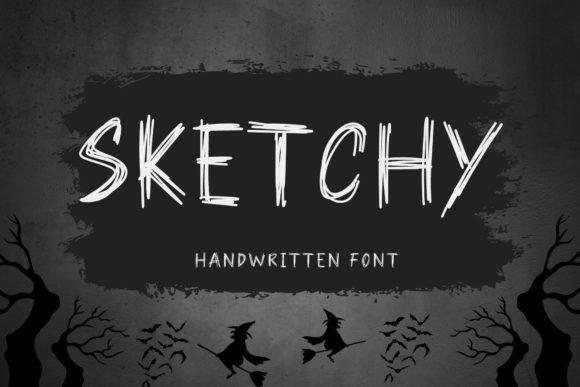
Welcome to the world of Sketchy Font, a decorative font family that will unleash your inner artist. With its playful and hand-drawn style, Sketchy Font transforms your designs into captivating works of art. Picture your words dancing across the page, each letter a unique and whimsical creation. Embrace the charm of imperfection as Sketchy Font breathes life into your projects, evoking a sense of nostalgia and joy.
Imagine crafting invitations that feel like a personal masterpiece, greeting cards that warm the heart, or social media posts that pop with personality. Sketchy Font is your creative companion, adding a touch of delight to every design. Its unique strokes and playful curves invite you to express yourself freely, creating designs that resonate with your audience.
Step into a realm where imagination knows no bounds. Sketchy Font is perfect for adding a personal touch to your projects. Whether you're designing logos, creating eye-catching posters, or simply adding a touch of whimsy to your presentations, Sketchy Font will make your ideas shine.
With Sketchy Font, you're not just downloading a font; you're inviting a world of creativity into your design toolbox. Experience the joy of creating designs that captivate and inspire, leaving a lasting impression on all who see them. Embrace the power of Sketchy Font and unlock your design potential today.